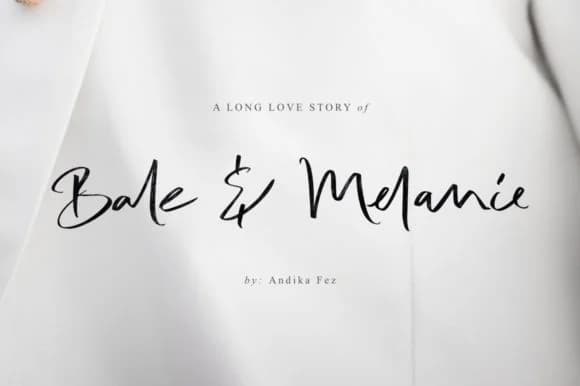
Bale & Melanie by andikafez is a flowing handwritten script that brings genuine personal warmth to any creative endeavor. The typeface captures the organic, authentic feel of pen-on-paper letterforms, making it particularly suited for design work that values human touch and sincerity over mechanical perfection. This elegant script excels across a wide range of applications where authenticity creates meaningful connection with audiences.
The font proves particularly valuable for wedding invitation suites, where its natural flow conveys the romance and individuality couples want their stationery to express. It's equally compelling for personalized greeting cards, artisanal product packaging, and boutique brand identity design. Whether you're creating custom stationery for a small business, designing hand-crafted book covers, or developing labels for artisan goods, Bale & Melanie delivers the elegant, approachable quality that modern consumers appreciate and trust.
Beyond print applications, this script performs beautifully in digital spaces too. The thoughtful construction of its letterforms maintains legibility while preserving the casual elegance that makes handwritten scripts so visually compelling. Social media graphics, website headers, and digital invitations all benefit from the authenticity this font brings. Its balanced personality works for both luxury positioning and approachable warmth, giving you flexibility across diverse creative projects.
Bale & Melanie Font is a script font that shines as a display or heading face. Pair it with a clean sans-serif or serif font for body text β the contrast creates a clear hierarchy while the two styles stay balanced and easy to read.
Bale & Melanie Font
by andikafez